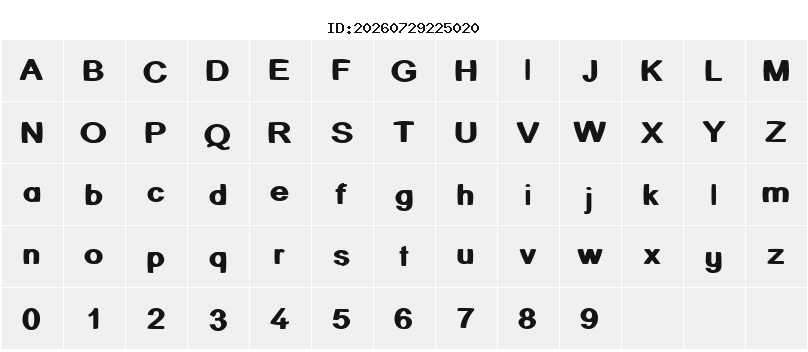
Kick Assinger Preview
• Font Name: Kick Assinger
• Full Font Name: Kick Assinger
About Kick Assinger.ttf
Kick Assinger.ttf is a modern, elegant sans-serif font designed for ultimate readability and visual harmony. Perfect for branding, headlines, web design, and print materials.